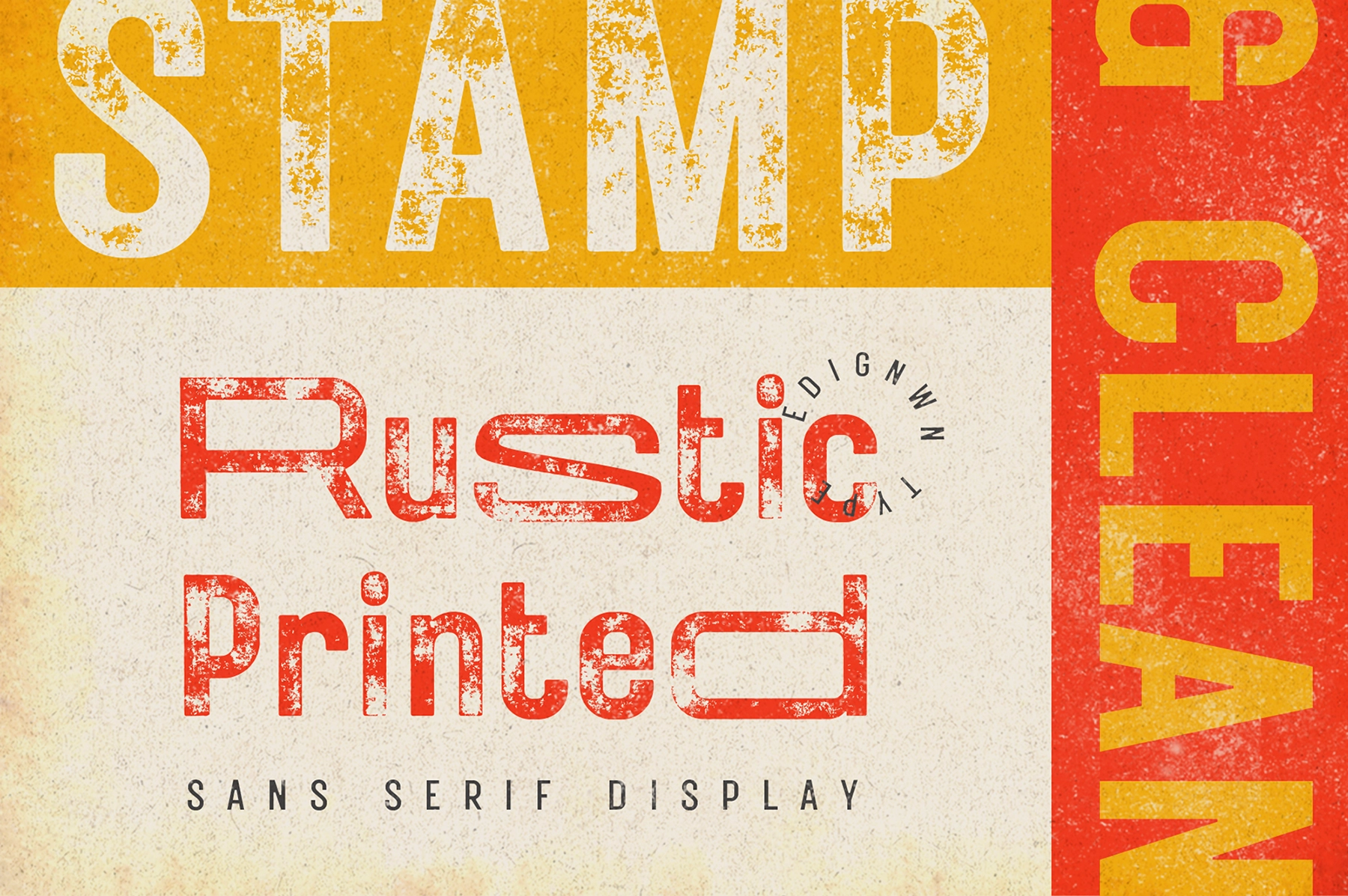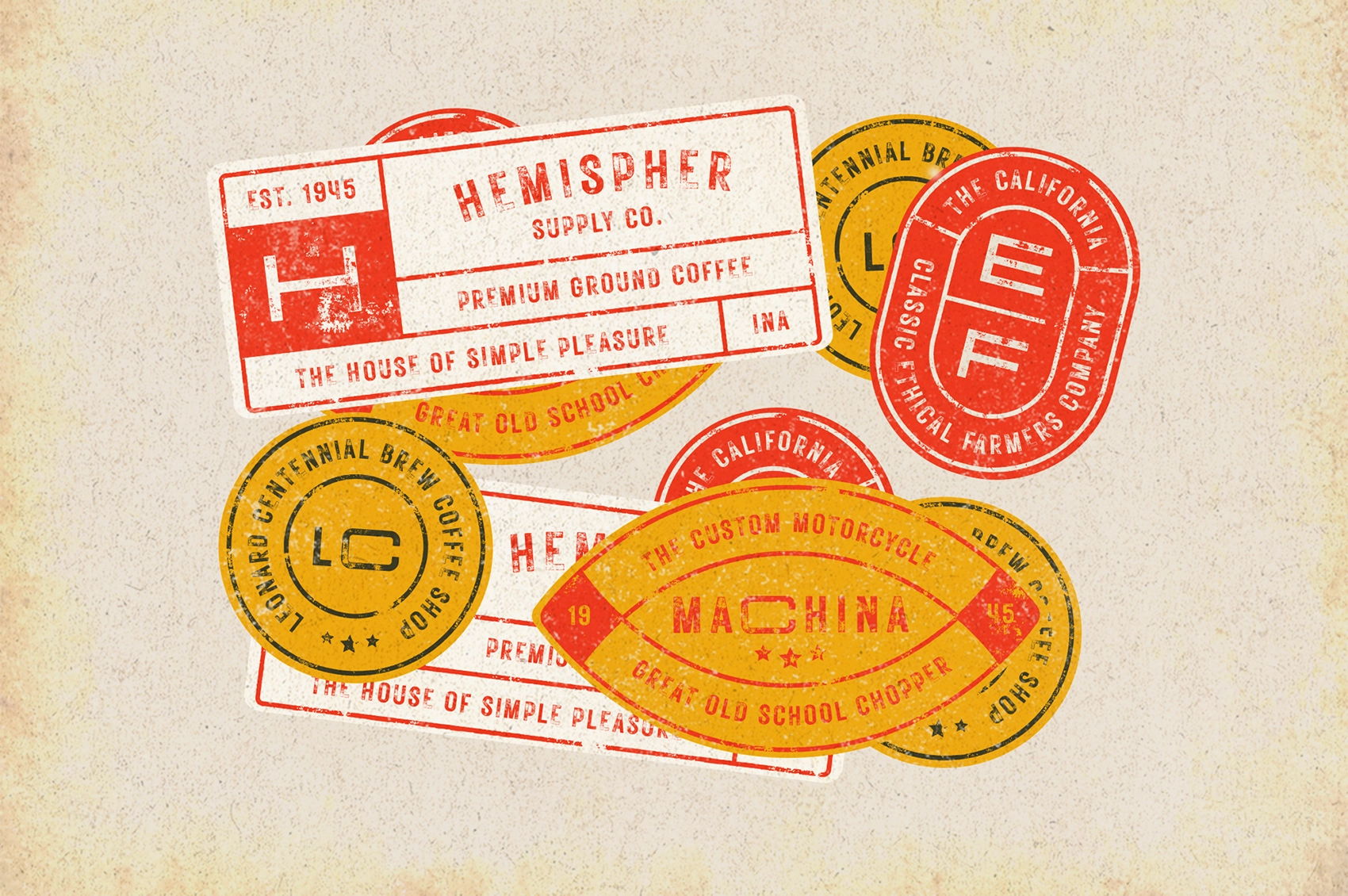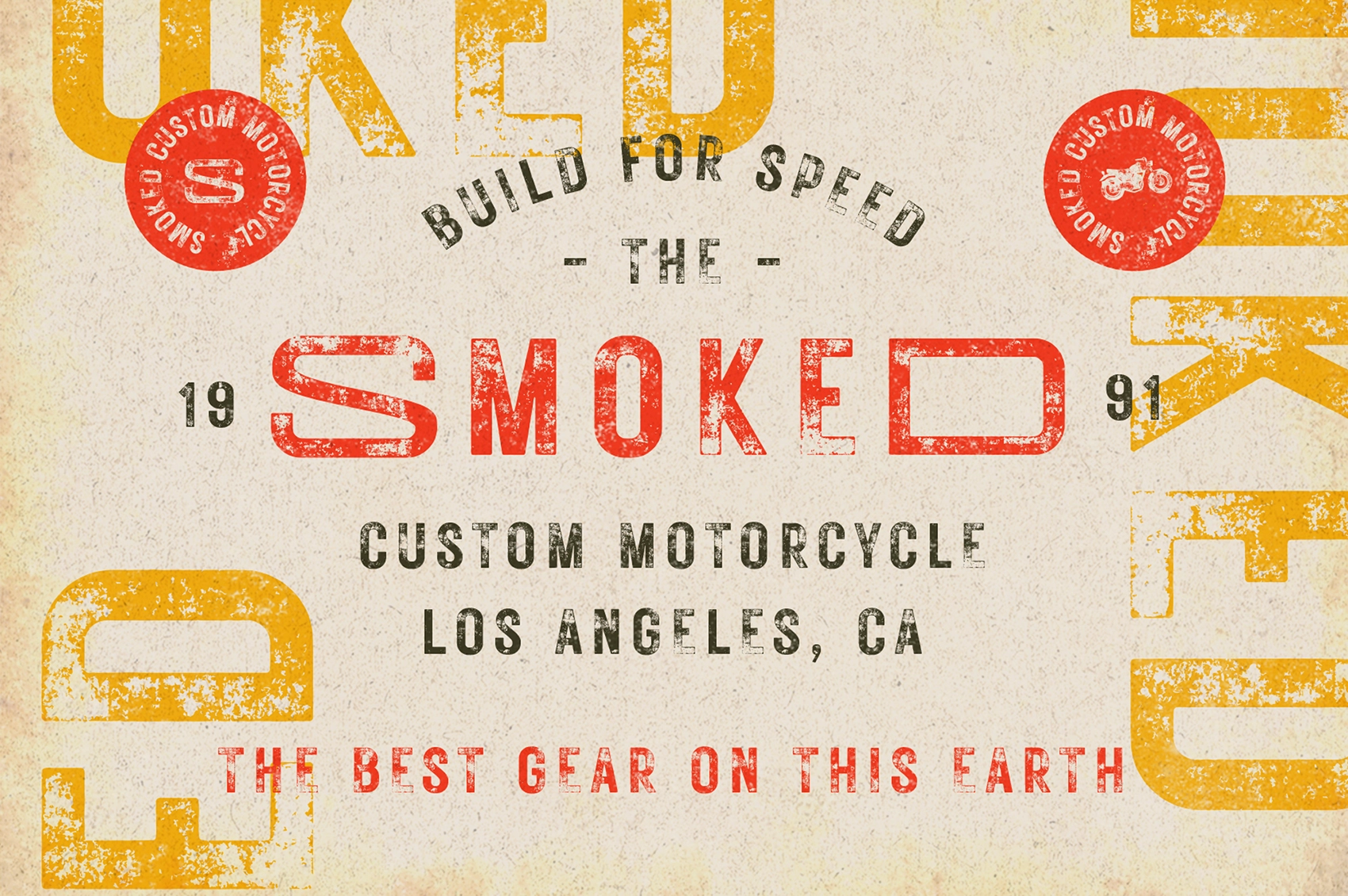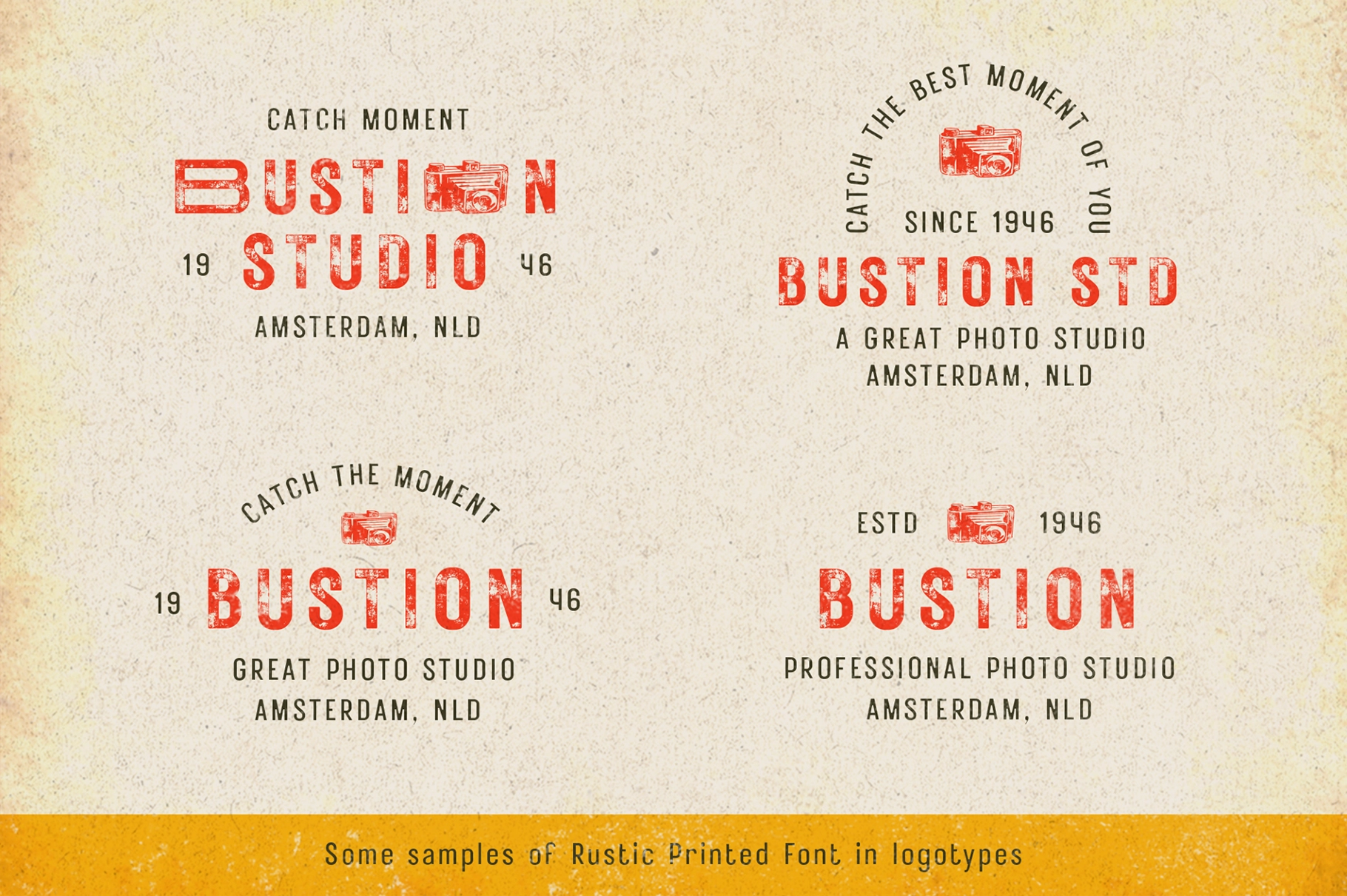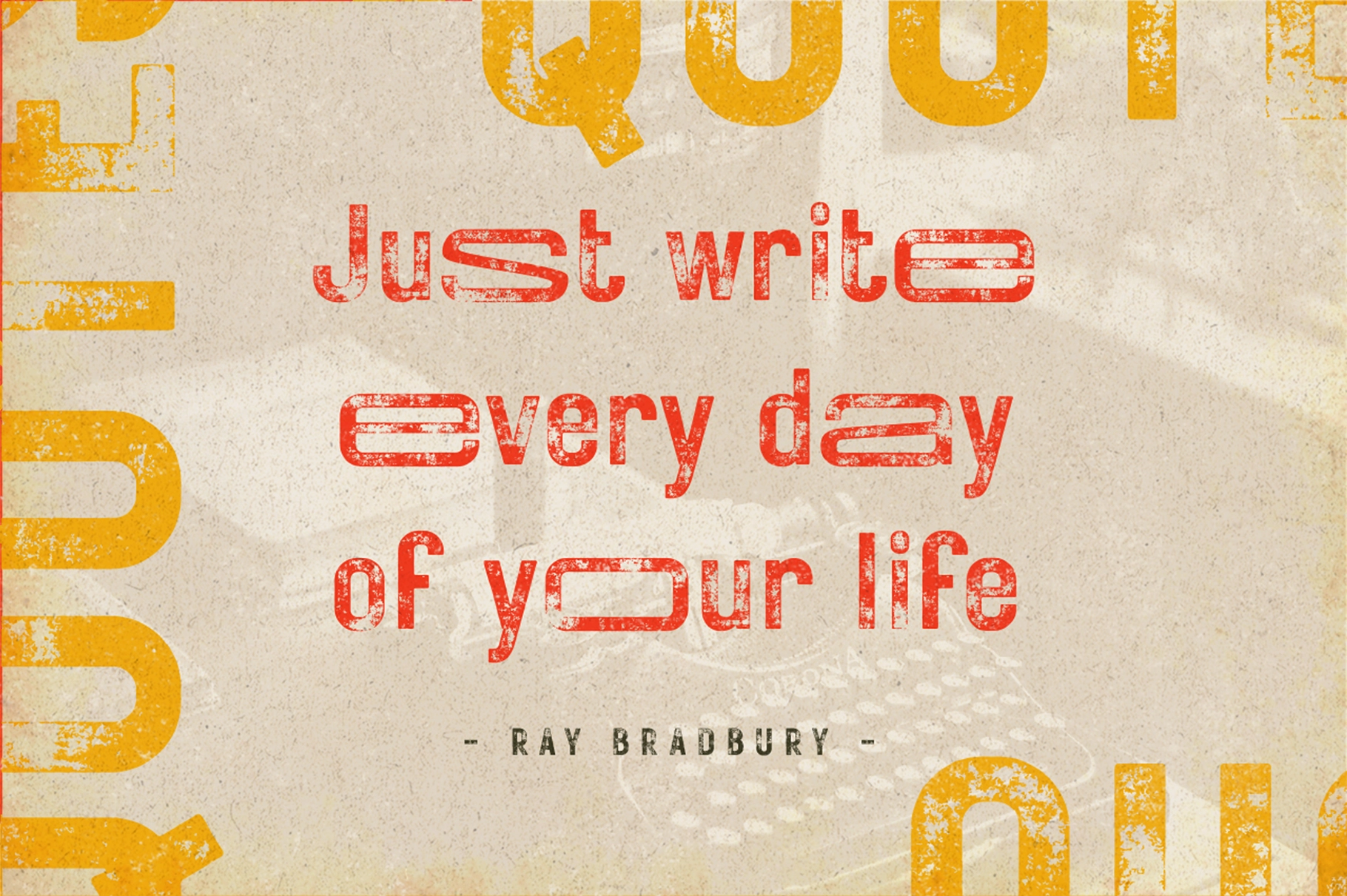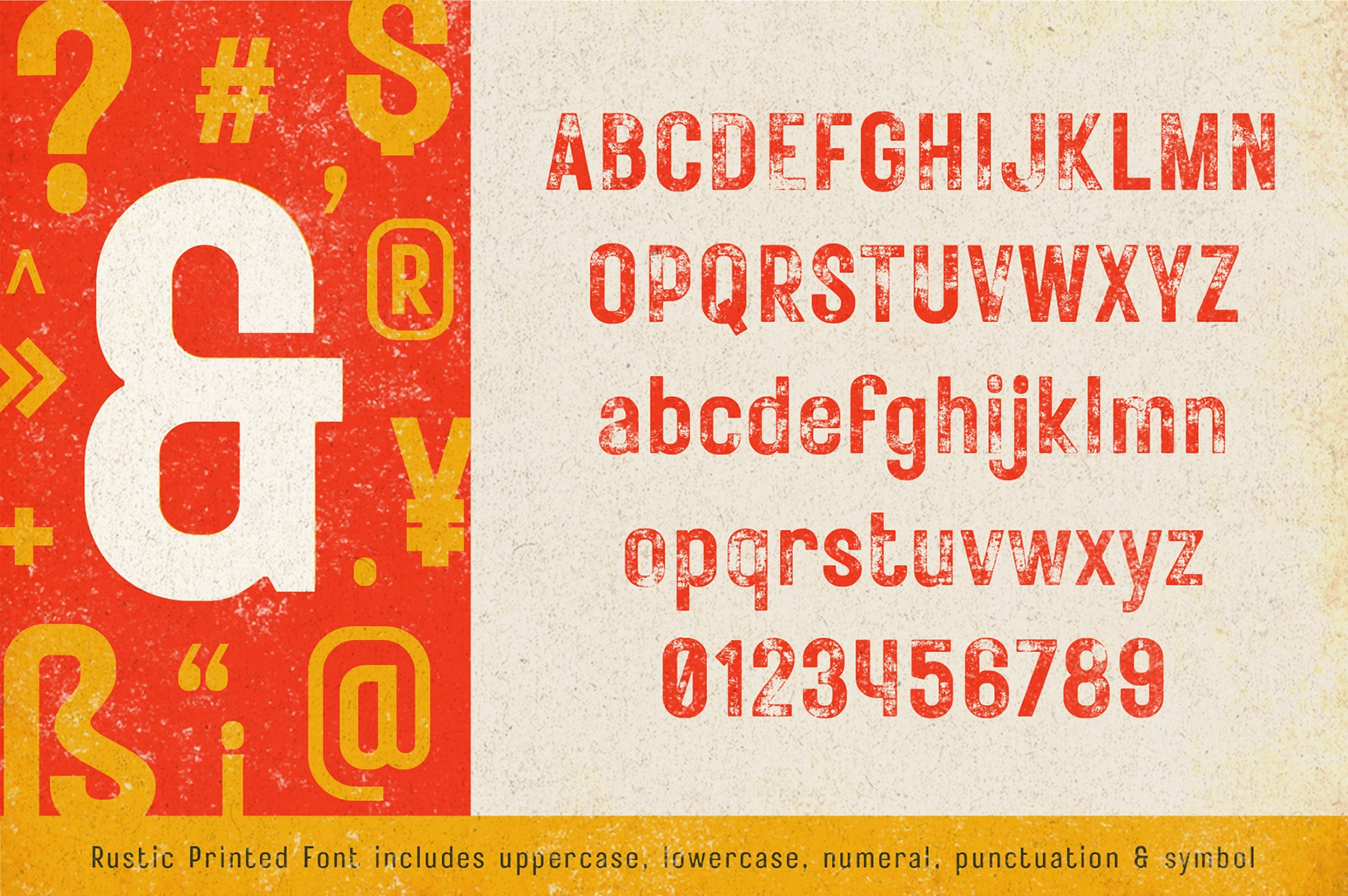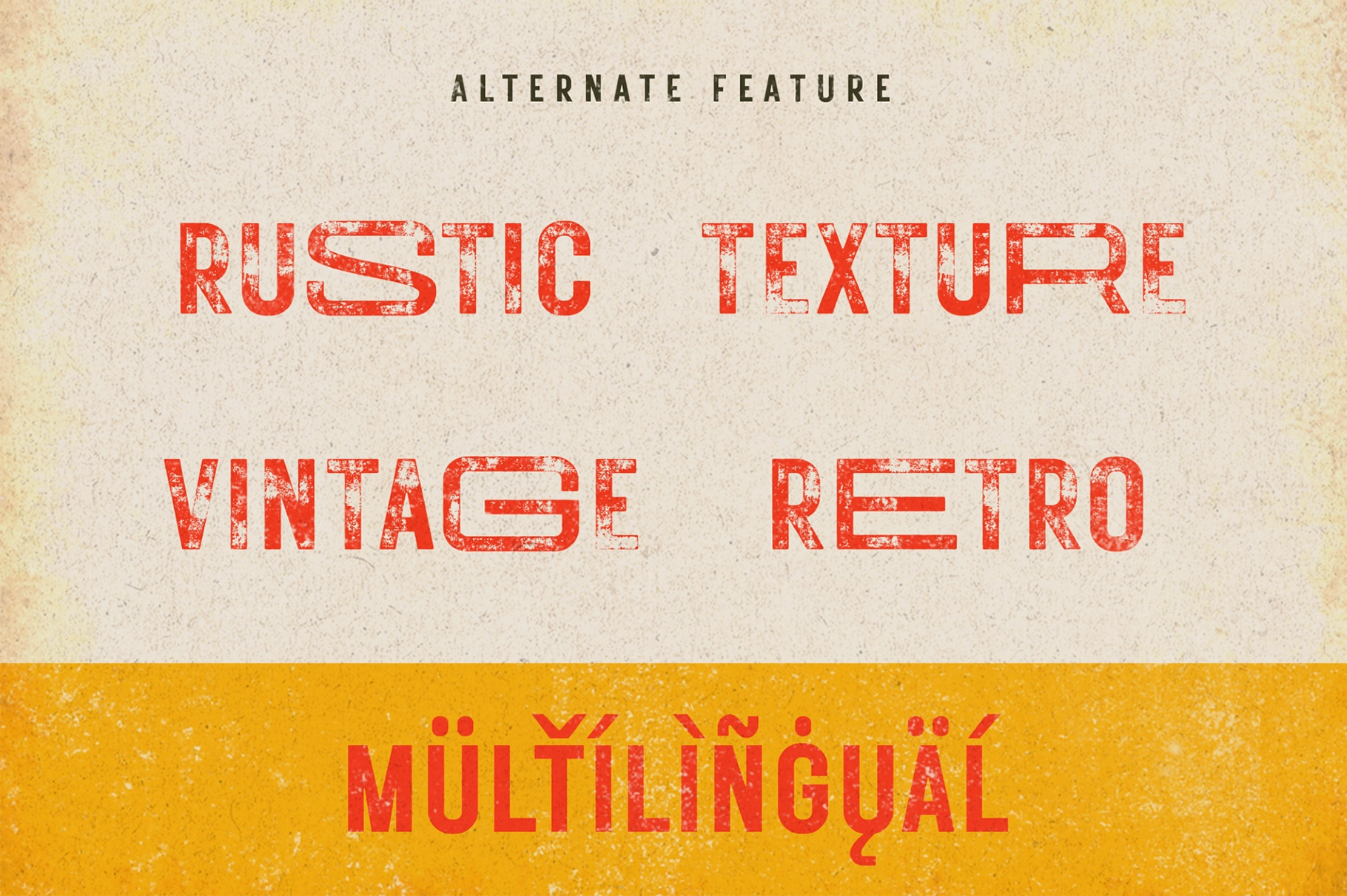
Rustic Printed - Display Font
The font is called "Rustic Printed", it is sans serif display with vintage themes. The font comes with 2 style typefaces (regular and stamp). This font include different width of alternates glyphs. The Rustic Printed matches applies in some designs such as the logotype, poster, label, badge, packaging, branding, and more custom design.
Rustic Printed includes:
- 2 style typefaces (regular and stamp)
- Uppercase, lowercase, numeral, symbol and punctuation
- Alternates
- Multilingual
- PUA Encoded